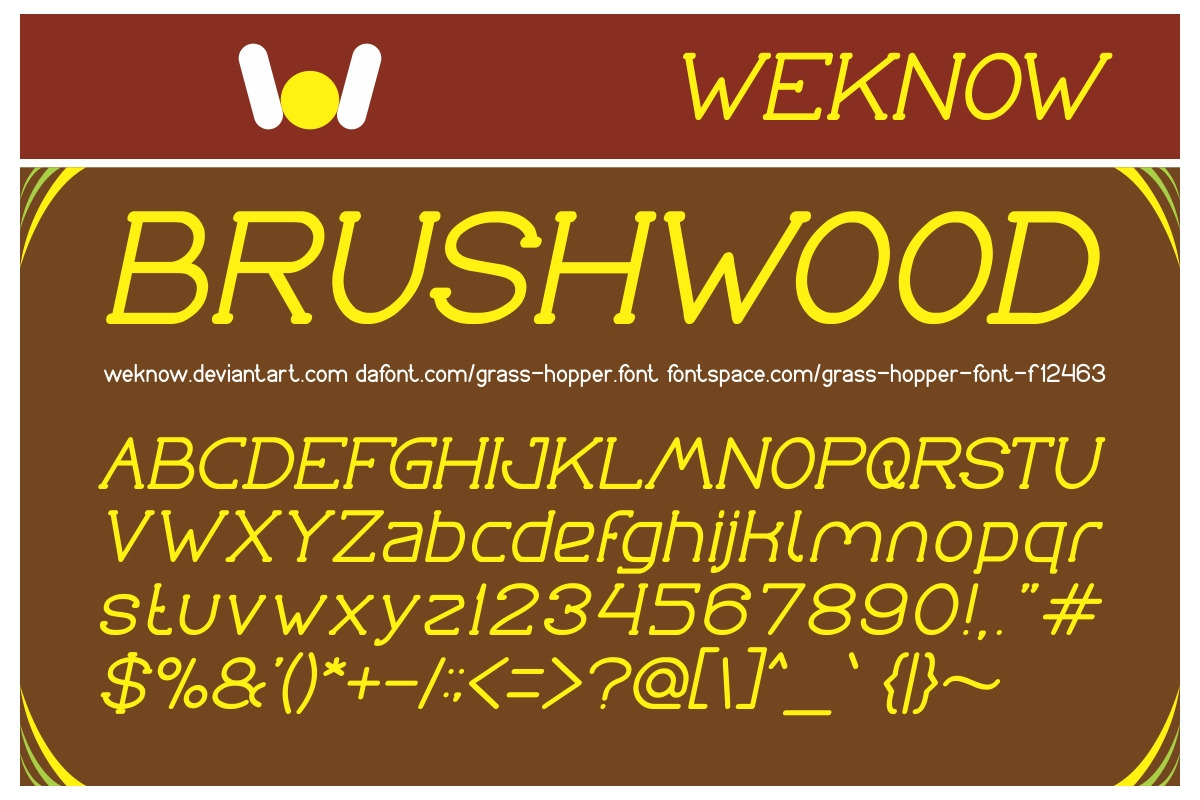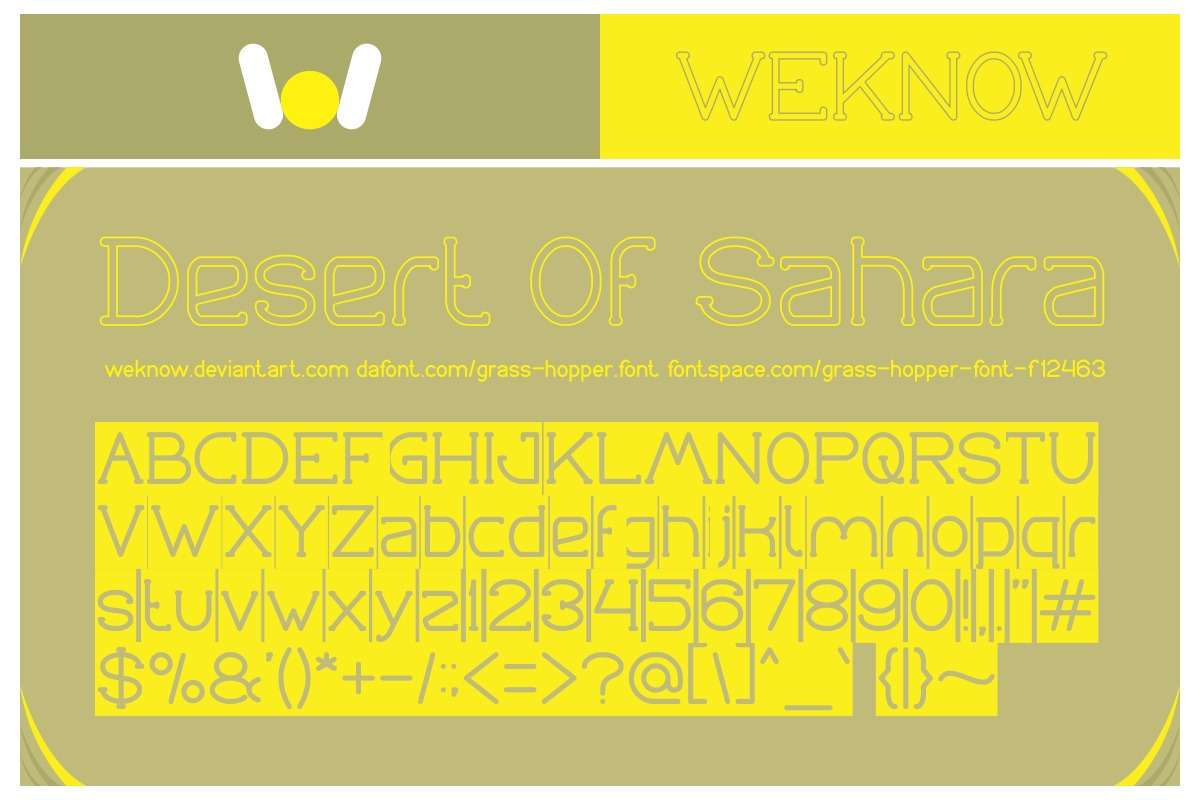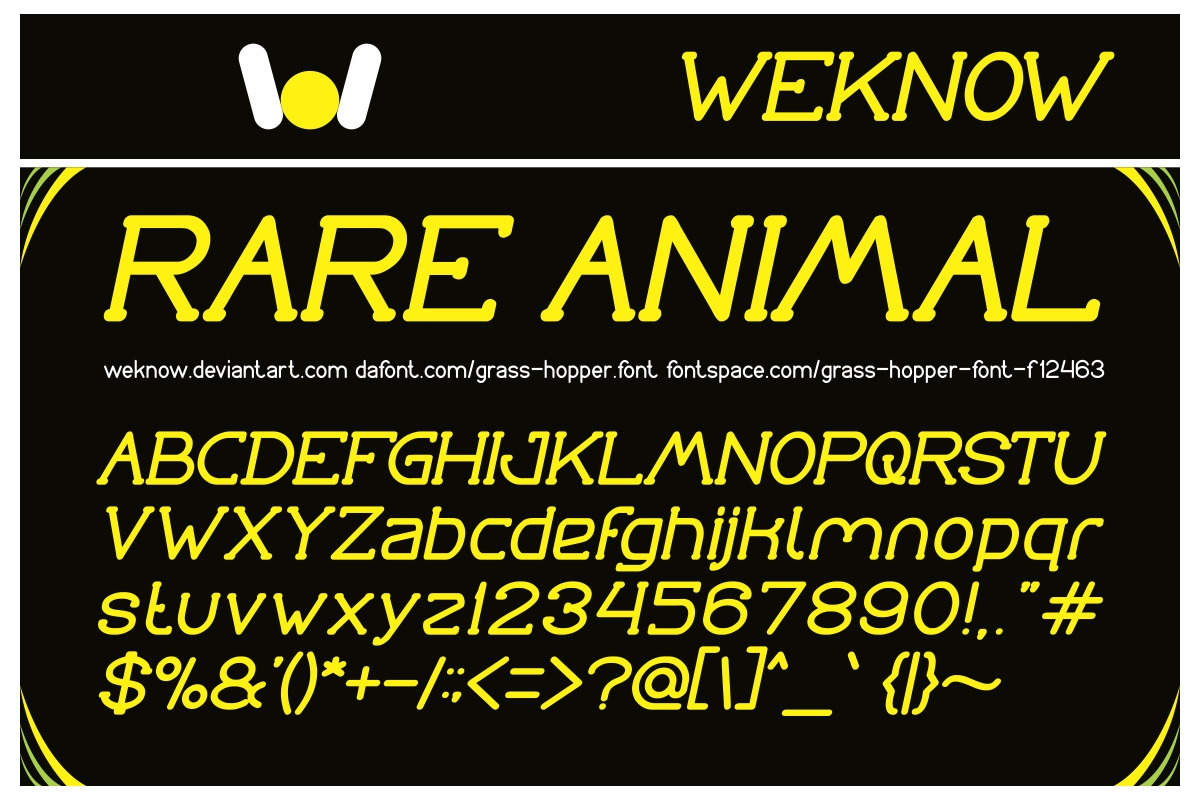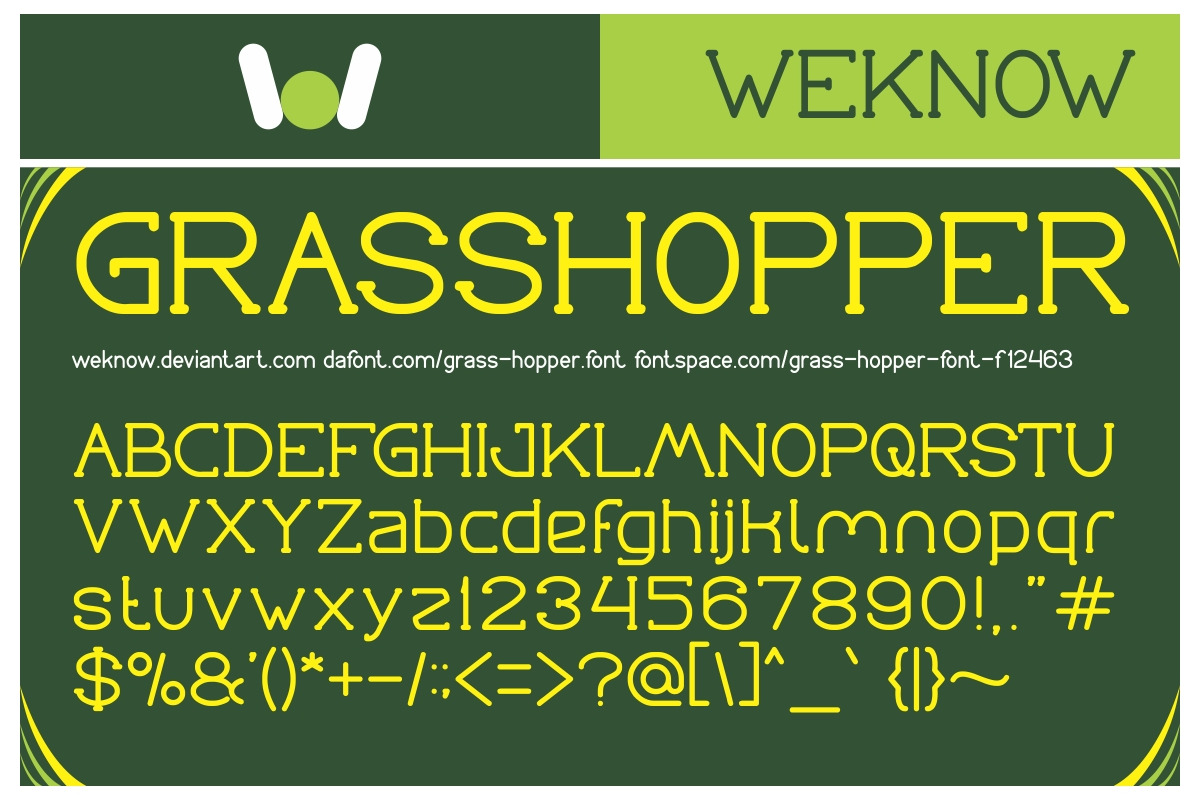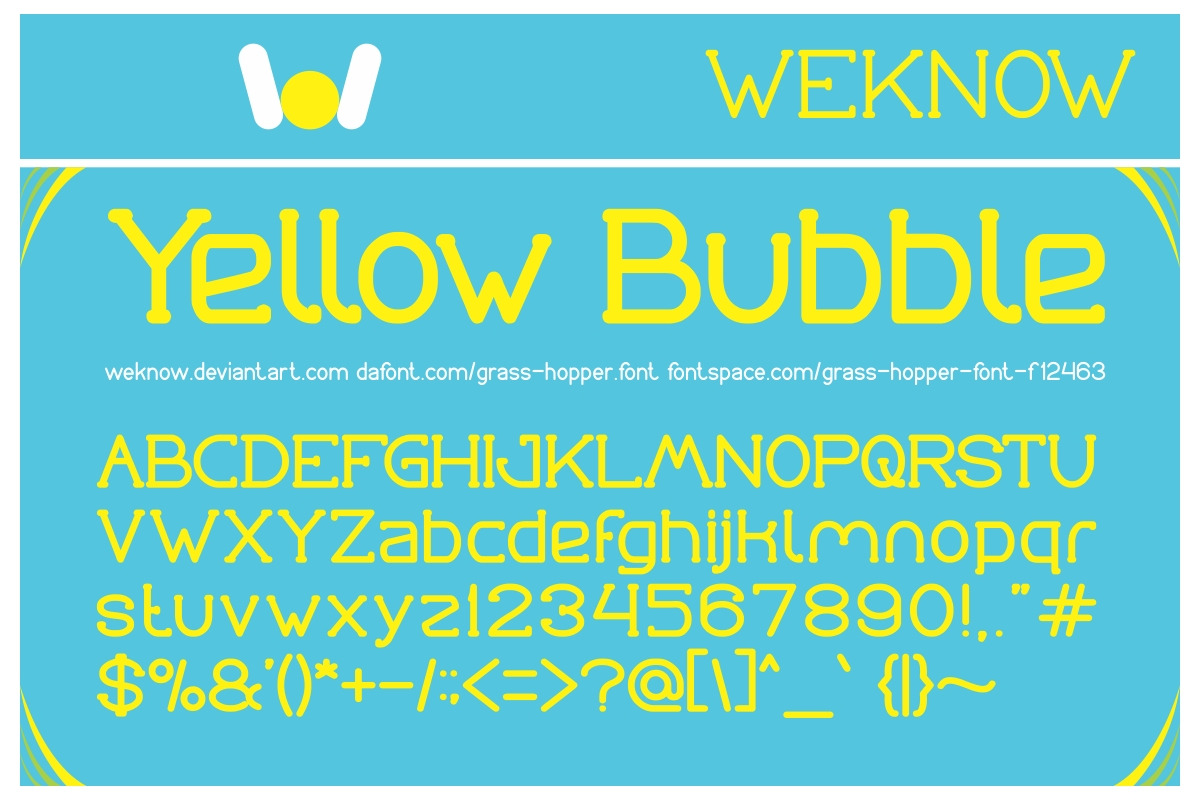
grasshopper font
available style: Grass Hopper-Bold, Grass Hopper-Bold-Italic, Grass Hopper-Hollow, Grass Hopper-Inverse, Grass Hopper-Italic
Why grasshopper font is worth a look
grasshopper font by weknow fits naturally into Branding, posters, packaging, typography.